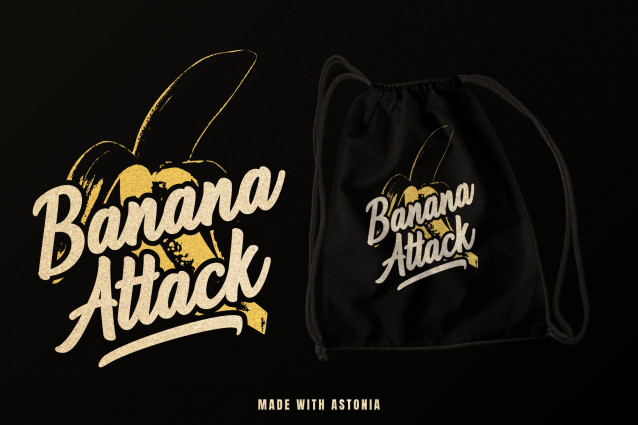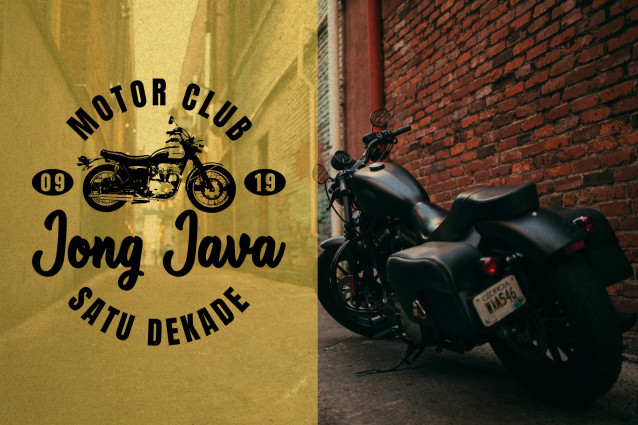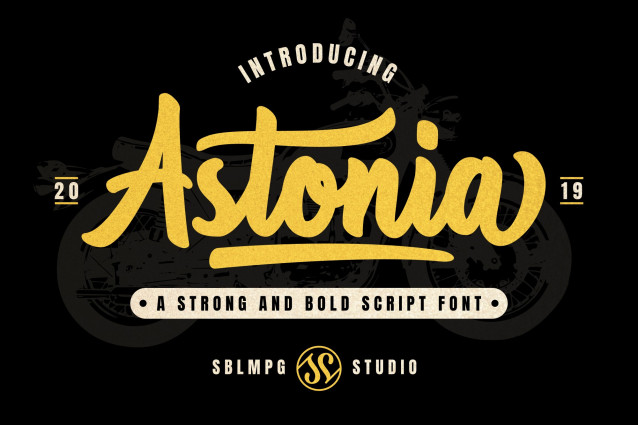
Astonia – Bold Script Font
Astonia Font is a strong and bold script font with rounded curves and a vintage personality. It has a confident look that works beautifully for branding.